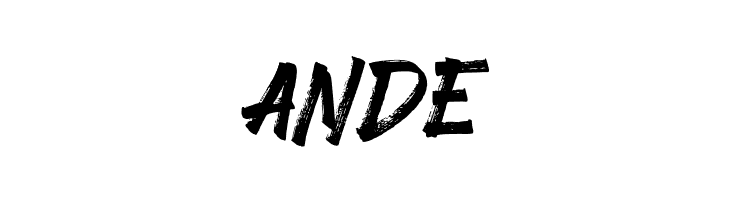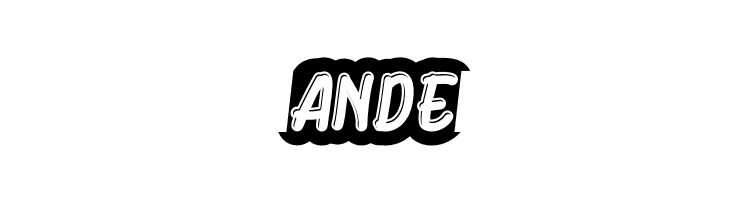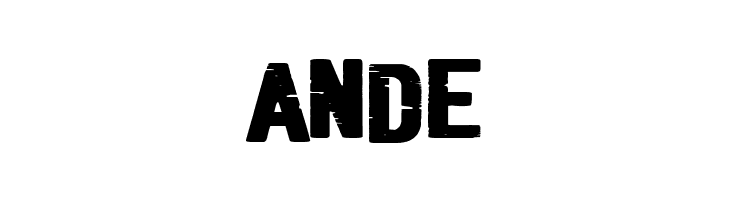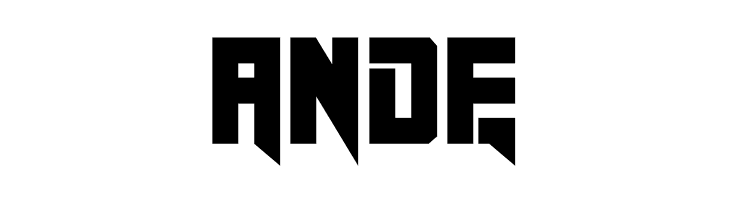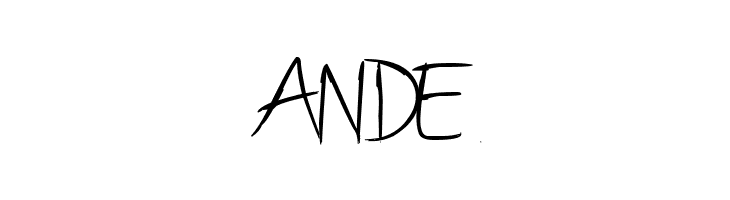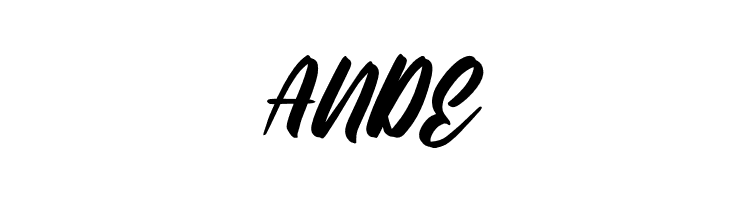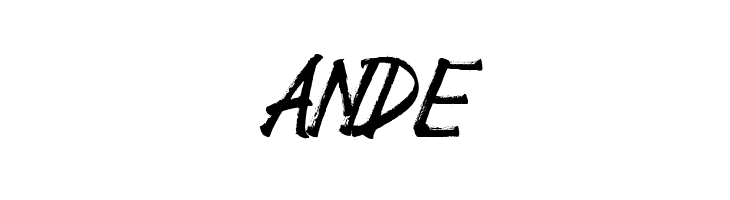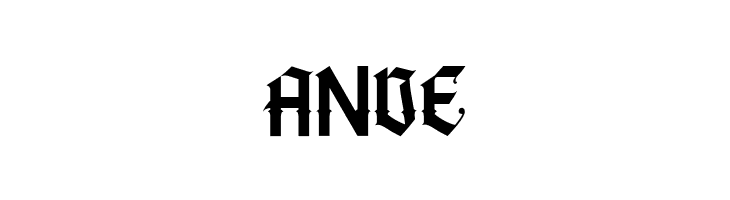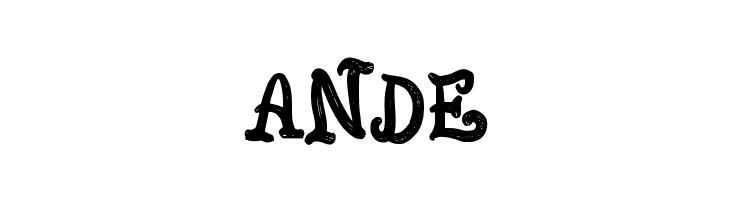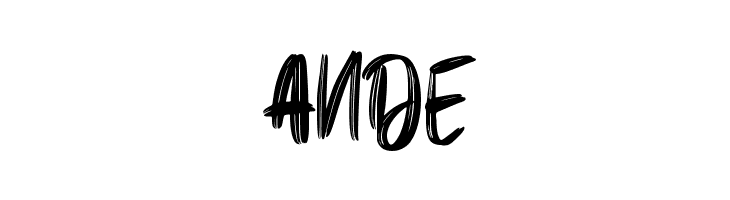
Outlined, geometric display font with a bold, technical look.
A bold, playful, and irregular hand-drawn display font.
A bold, brush-style font with a dynamic, hand-painted appearance.
An intricate, chaotic font with overlapping loops and lines, ideal for creative projects.
A bold, distressed font with a rugged, vintage appearance.
A bold, decorative font with a forest silhouette integrated into each character.
A bold, modern font with thick strokes and wide spacing, perfect for headlines.
A bold, cursive script font with a modern and expressive style.
A playful, hand-drawn font with bold outlines and a whimsical style.
A bold, zigzag-patterned font with a dynamic and energetic style.
A bold, expressive, hand-drawn font with dynamic strokes.
A bold, angular blackletter-inspired font with a modern twist.
A decorative and ornamental typeface with intricate flourishes.
A bold, expressive handwritten font with dynamic, fluid strokes.
A bold, geometric sans-serif font with a unique black highlight effect.
A bold, expressive script font with a hand-drawn, dynamic style.
A bold, brush-style font with dynamic, hand-painted strokes.
A bold, brush script font with textured, expressive strokes.
A bold, circular font with playful, cartoon-like characters.
A lively and dynamic handwritten font with playful curves and irregular strokes.
A bold, playful, and decorative font with a hand-drawn style.
A bold, expressive handwritten font with dynamic curves.
A bold, outlined script font with a playful, energetic style.
A bold, geometric font with sharp angles and a modern, industrial feel.
A tall, narrow font with thin strokes and a modern, sophisticated style.
A bold, textured font with a rugged, handcrafted appearance.
A bold, playful handwritten font with a casual and dynamic style.
A playful, handwritten font with smooth, flowing lines and a casual style.
A bold, flowing script font with elegant, interconnected characters.
A bold, brush-style script font with a dynamic and artistic flair.
A bold, dynamic handwritten font with thick strokes and an energetic flow.
A bold, italic, handwritten-style font with dynamic and expressive characters.
A dynamic, expressive handwritten font with fluid, organic strokes.